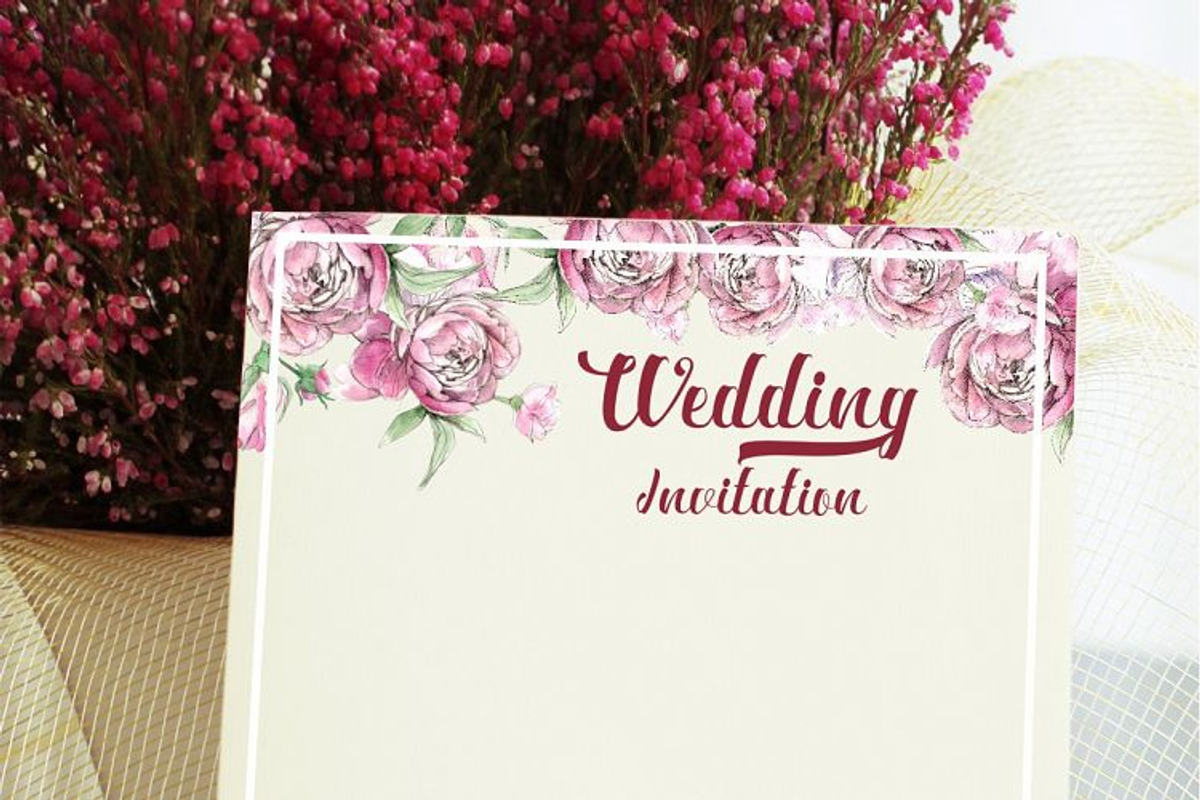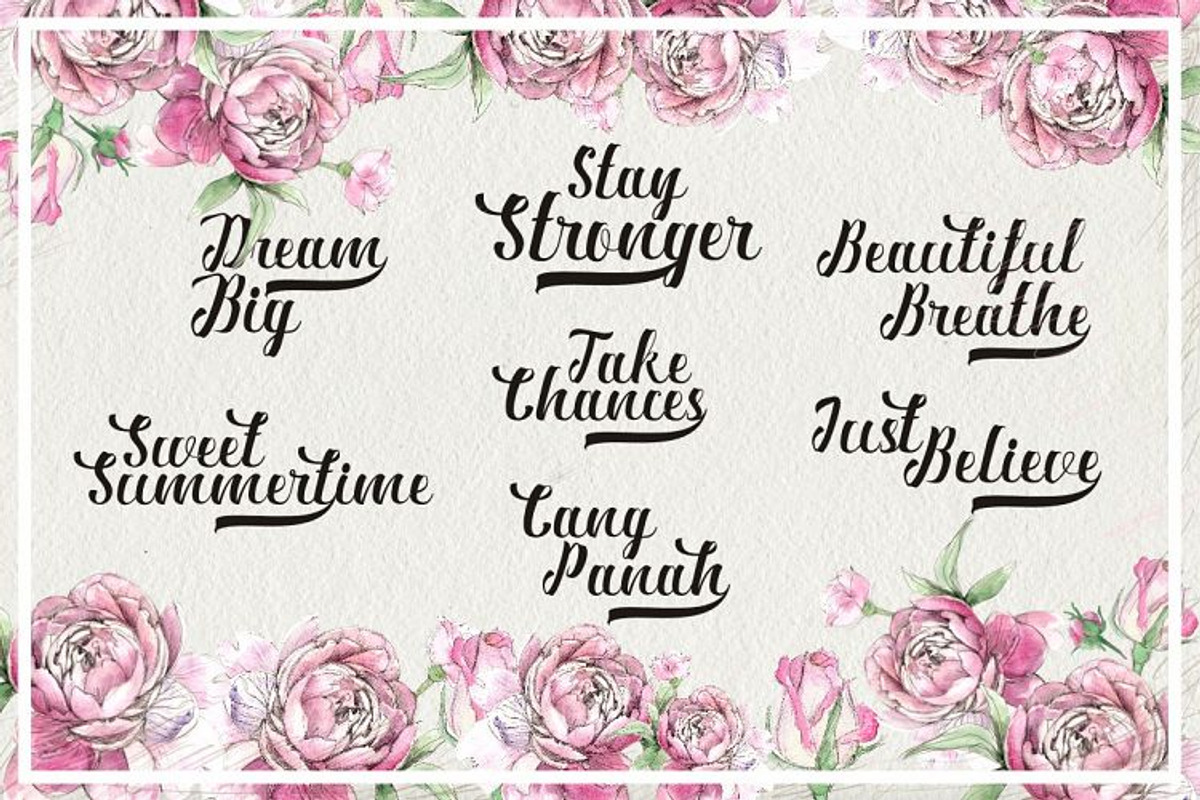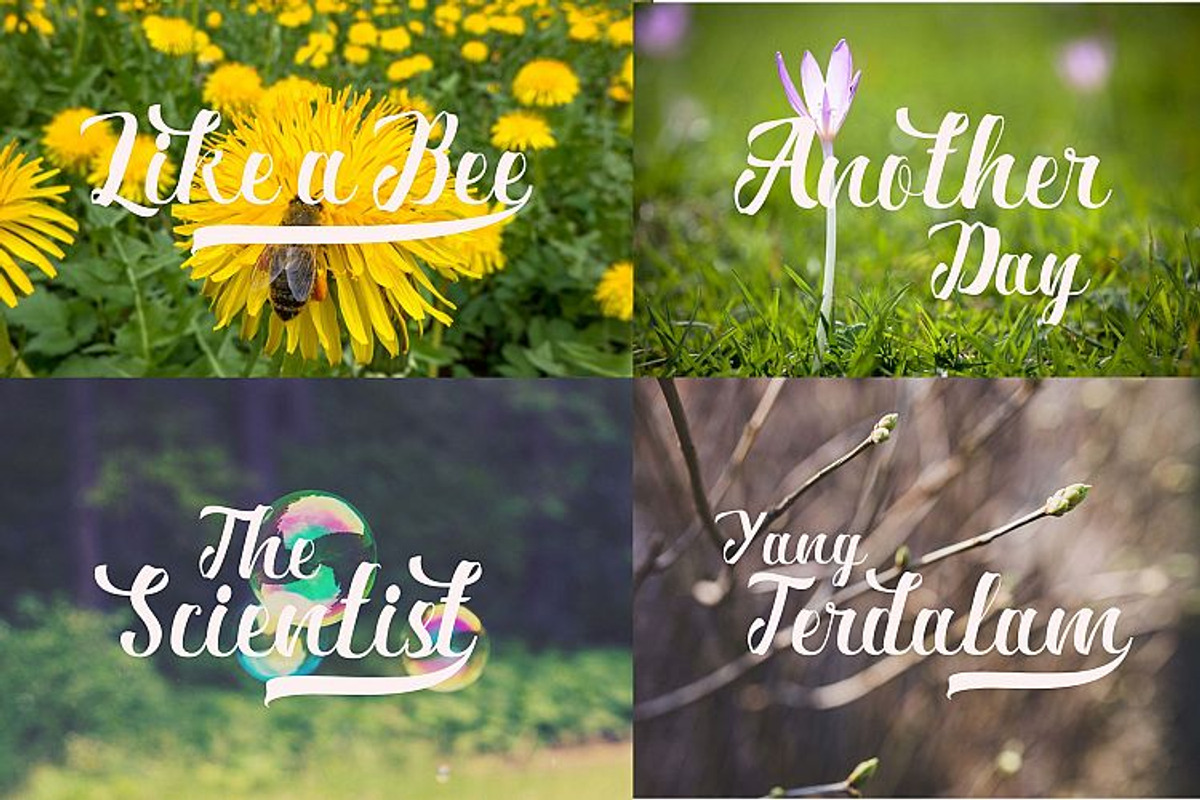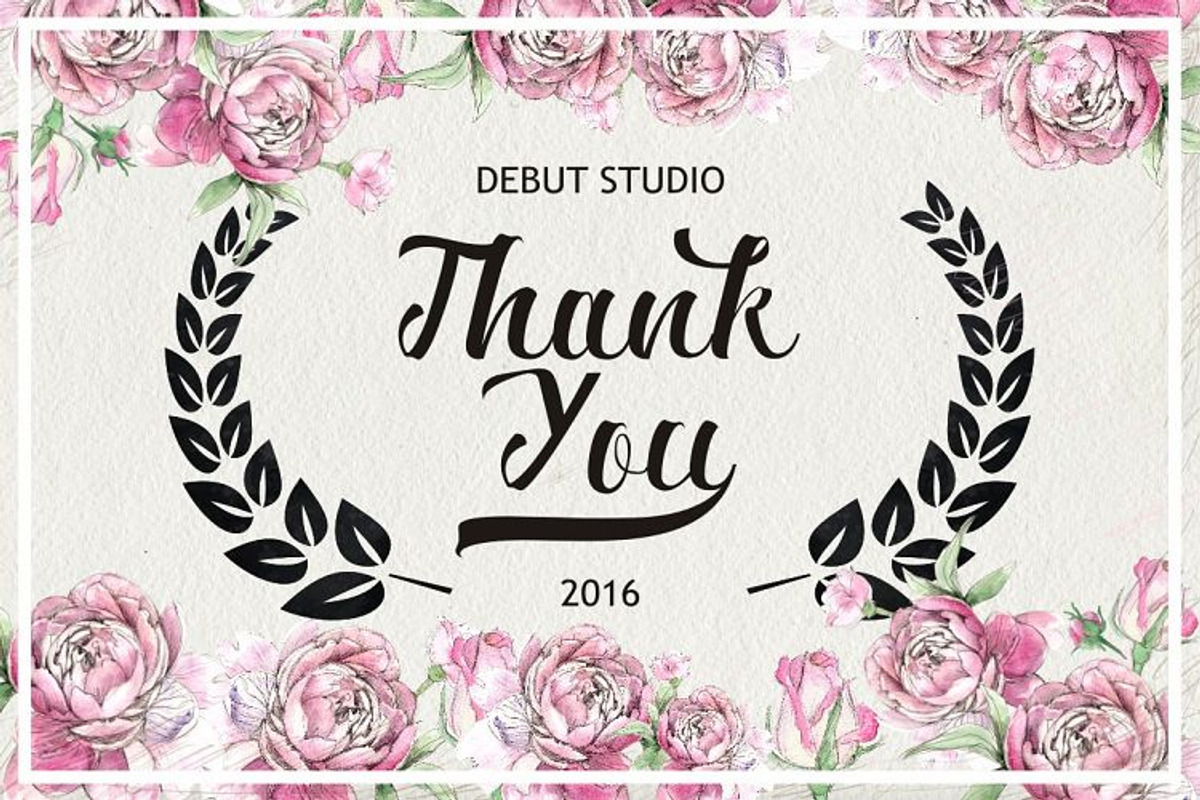
Ardina Script
Ardina Script by Font Bundles is a font selected for branding, posters, packaging, typography.
- Ardina Script has many glyphs and alternate characters and ligatures.
Why Ardina Script is worth a look
Ardina Script by Font Bundles fits naturally into Branding, posters, packaging, typography.